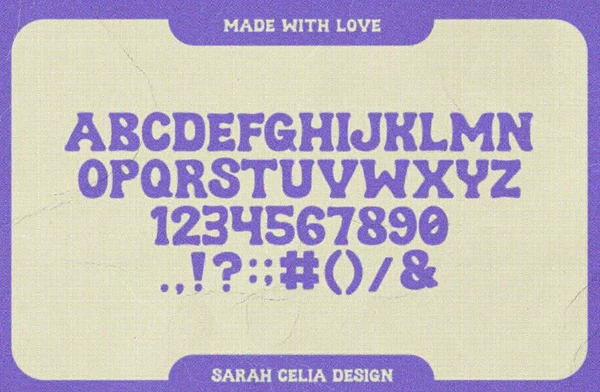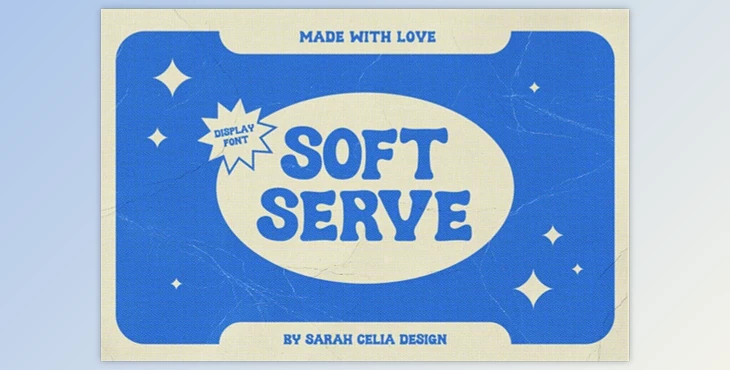
Soft Serve - Bold Retro Groovy Display Font: Introducing Soft Serve, a bold and groovy display font designed to infuse your design projects with a friendly and welcoming vibe. With its extensive and curvy serifs and thick letterforms, Soft Serve brings a bright and vintage flare to any design project, making it perfect for adding a memorable touch to your logotypes or impactful headlines.
How can we give our texts a bold groovy look?
You can use "Soft Serve - Bold Retro Groovy Display Font."
This versatile font captures attention with its unique style, making it ideal for various design applications, including branding, packaging, posters, and social media graphics .Soft Serve's bold and groovy aesthetic will leave a lasting impression, whether aiming for a retro-inspired look or a modern twist on classic typography.
"Soft Serve - Bold Retro Groovy Display Font" Samples:
With Soft Serve, you can effortlessly elevate your designs and captivate your audience with its bold and distinctive charm.